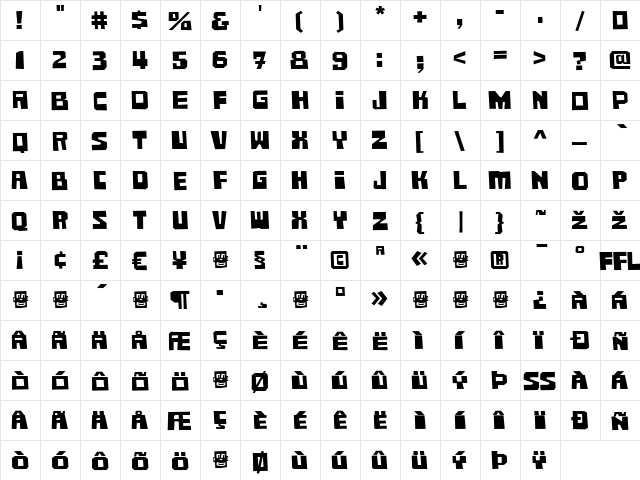
Buster Regular
Design Context for Buster Typeface
Buster is a composed and adaptable typeface that performs quietly and consistently across a wide range of design contexts.
Pro Tip: Pair Buster with a font of contrasting weight or personality to build a more expressive typographic hierarchy.